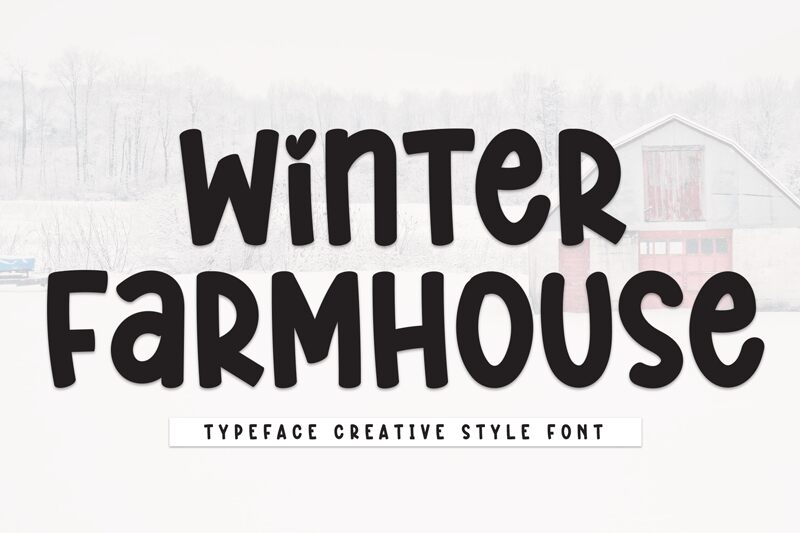
Winter Farmhouse font
Winter Farmhouse
Special creative products await you, providing an extraordinary experience with our free font offerings. The latest style letters are ideal for various applications, including wall displays, wedding invitations, social media post logos, advertisements, product packaging, and labels. Our fonts are also perfect for photography, watermarks, stationery, and any project requiring elegant handwriting.